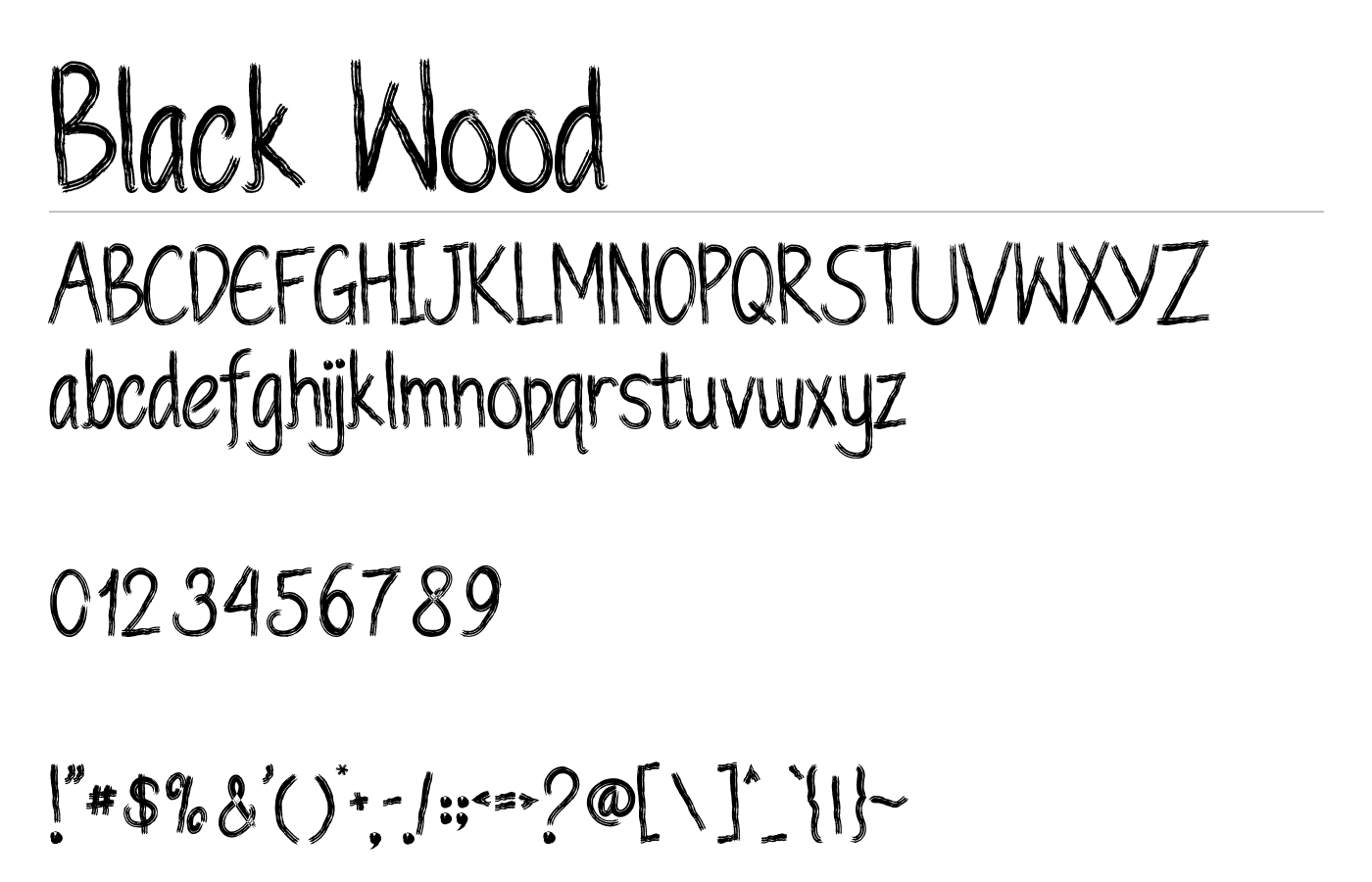
Black Wood is a quirky, hand-drawn sans serif font with a tall, narrow structure and an organic, textured stroke that resembles rough wood grain. Its playful and informal style makes it perfect for creative projects, casual branding, and fun headlines that want to convey a natural, handmade vibe. This font stands out in designs that seek charm and personality rather than formality or precision.
Black Wood Font
About Black Wood Font